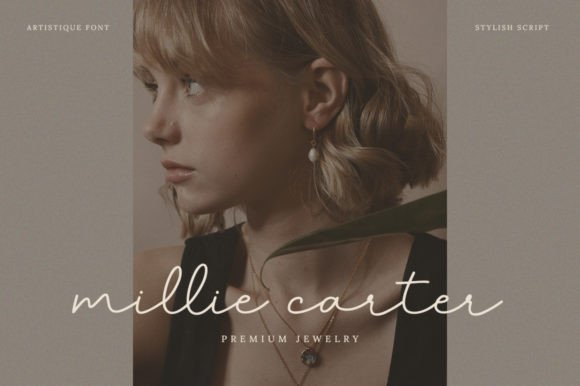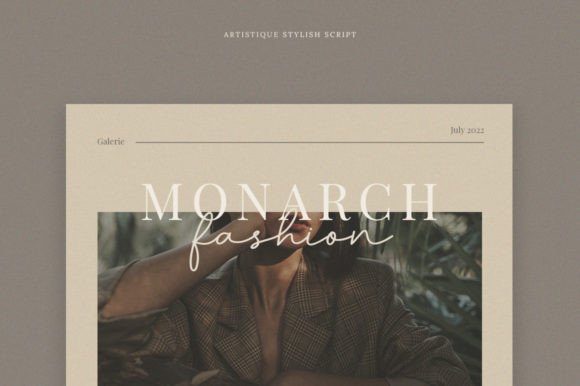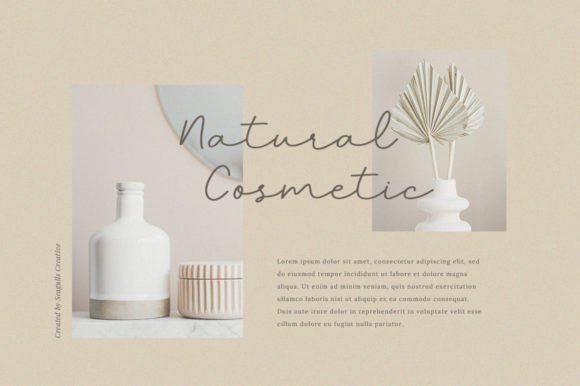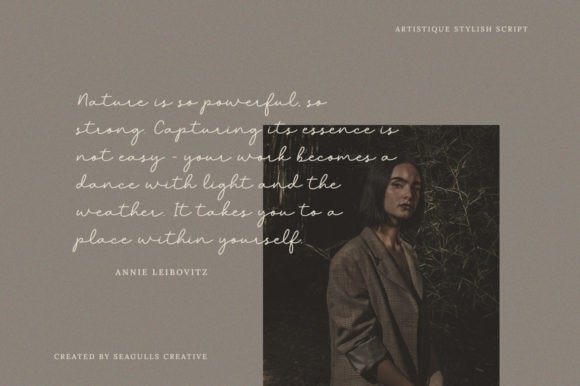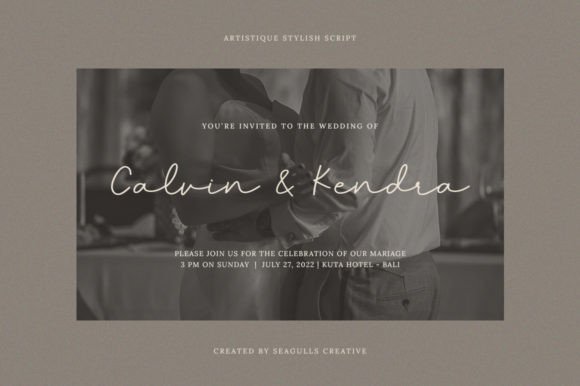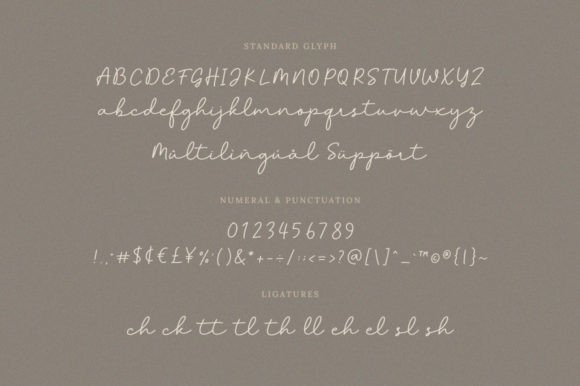
Artistique Font
About Artistique Font
**Artistique Font: Stylish Script Elegance for Diverse Design**
Introducing the “**Artistique**” font—a stylish script font with a simple and natural cursive style. This font is the epitome of elegance and is ideal for a wide array of design applications. Whether you’re working on branding, labels, watermarks, photography, wedding invitations, stationery, social media posts, advertising, signatures, packaging, product design, and beyond, Artistique delivers a touch of sophistication to your creative projects.
**Stylish Script Elegance:**
Artistique exudes stylish script elegance, making it a perfect choice for projects that demand a refined and sophisticated look. The cursive style adds a natural and effortless flow to your text.
**Versatile Design Applications:**
This font is a versatile addition to your design toolkit. From branding to labels, watermarks to wedding invitations, and social media posts to packaging, Artistique adapts seamlessly to a diverse range of design applications.
**Perfect for Photography and Advertising:**
Enhance your photography projects with the elegance of Artistique. It’s also a stylish choice for advertising materials, ensuring that your message is conveyed with a touch of sophistication.
**Ideal for Wedding Invitations and Stationery:**
Artistique shines on wedding invitations and stationery. The script font brings a sense of romance and grace to these materials, creating a memorable and visually stunning presentation.
**Signature Style for Signatures:**
Use Artistique to create signature-style elements. Whether it’s for personal signatures or adding a signature touch to your designs, this font brings a sense of authenticity and individuality.
**Branding Excellence:**
When it comes to branding, Artistique stands out. Its stylish and elegant script adds a distinctive character to brand identities, leaving a lasting impression on your audience.
**Seamless Integration in Product Design:**
Integrate Artistique seamlessly into product design. Whether it’s labels, packaging, or other product-related elements, this font adds a touch of sophistication and elegance.
**Engaging on Social Media:**
Use Artistique to create engaging social media posts. Its elegant script captures attention and adds a stylish element to your visual content, making your posts stand out.
Artistique is more than just a font; it’s a design tool that brings stylish script elegance to your creative projects. Let it be the choice that elevates your designs, adding sophistication and character to every piece and making a lasting impact in diverse design scenarios.